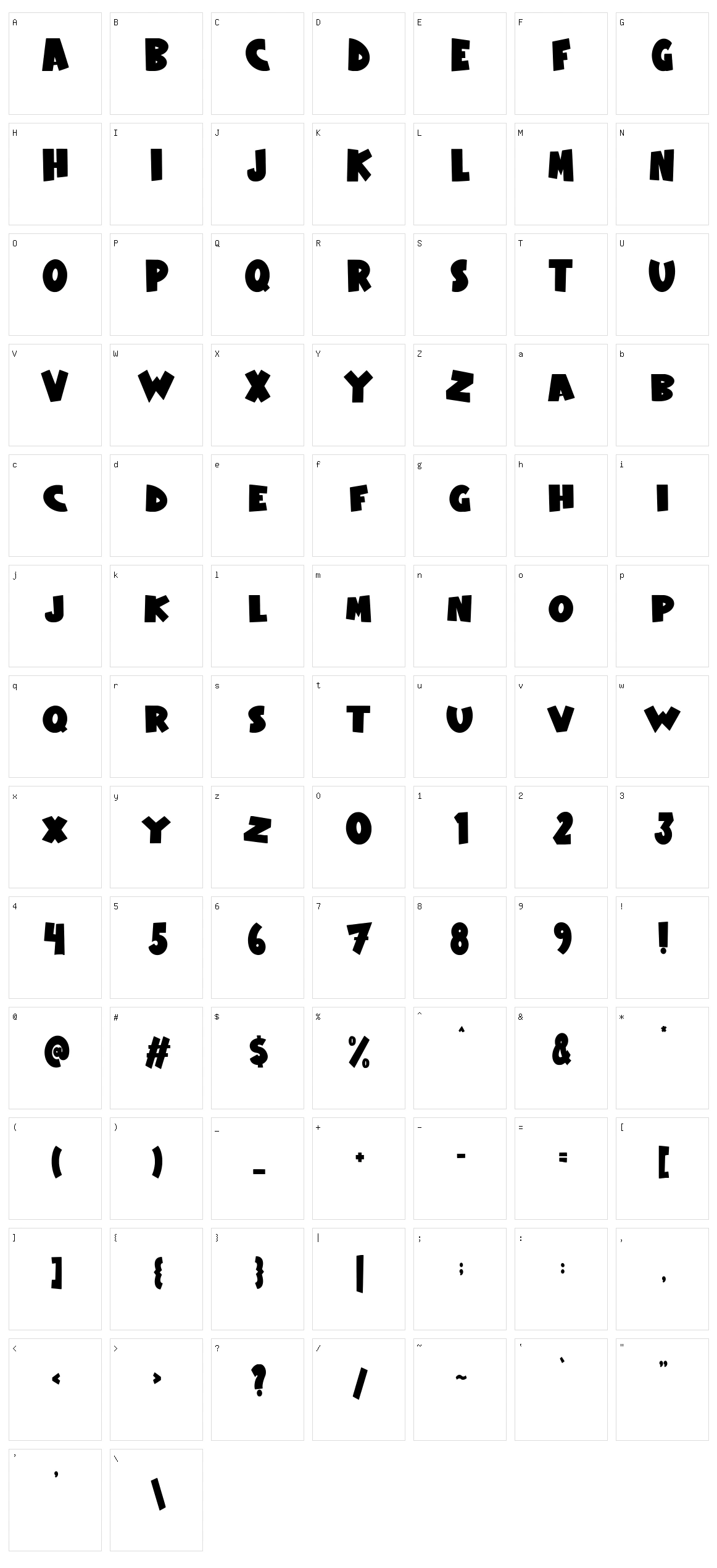
The free font Night Action is carefully designed by Hatf Type, showcasing a thoughtful balance of creativity and usability and falls under the Cartoon font style. When you download the ZIP file, it contains only 34.64 KB of font files, making it lightweight and quick to download. Please review the license details below to understand permitted usage and distribution rights. If license information is not available, we recommend using this font for personal projects only or contacting the author directly for commercial usage permissions.